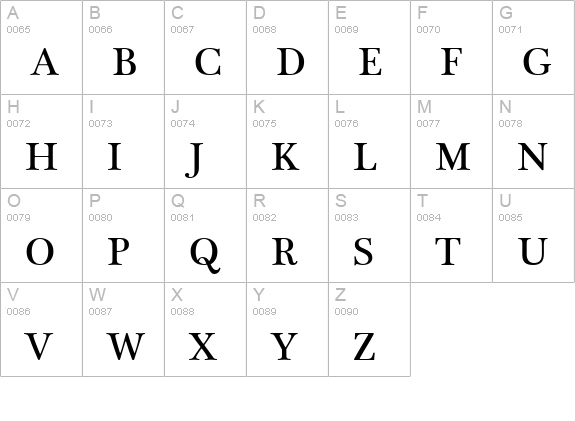
Plantagenet Cherokee Font Details
Introducing the exquisite Plantagenet Cherokee font, a captivating typeface that seamlessly blends modern elegance with a touch of timeless charm. This font is not only visually stunning but also holds a rich historical significance. Inspired by the iconic Plantagenet dynasty and paying homage to the Native American Cherokee language, this font perfectly captures the essence of cultural diversity and artistic expression. Plantagenet Cherokee font boasts a unique fusion of graceful curves and sharp, confident strokes, making it an ideal choice for a wide range of design projects. Whether you are creating invitations, branding materials, or editorial layouts, this font effortlessly adds a touch of sophistication and refinement to any piece. One of the most remarkable aspects of Plantagenet Cherokee font is that it is freely available to download at FontsMarket.com. Yes, you read it right! This exceptional font is not only aesthetically pleasing but also accessible to everyone, making it a valuable asset for both professional designers and aspiring creators. The versatility of Plantagenet Cherokee font knows no bounds. Its legibility and versatility make it a perfect choice for both large headlines and small text blocks. With its extensive character set, including uppercase and lowercase letters, numerals, punctuation marks, and special symbols, this font ensures that your message is conveyed with utmost clarity and precision. Immerse yourself in the world of Plantagenet Cherokee font's stunning elegance and embrace the seamless harmony between tradition and modernity. Download this remarkable font for free at FontsMarket.com and let your creativity soar to new heights.